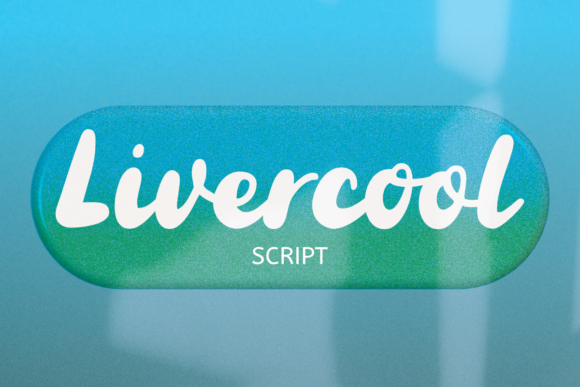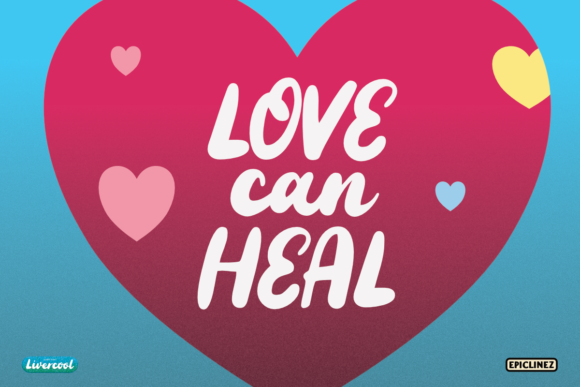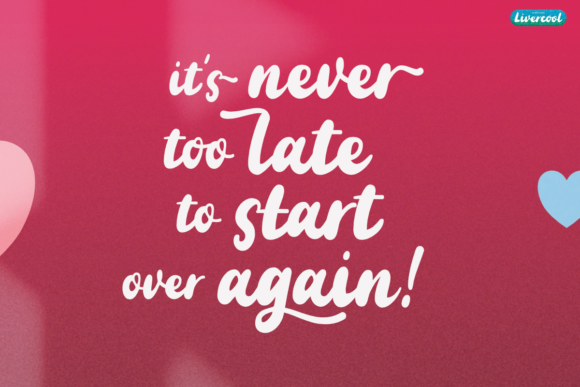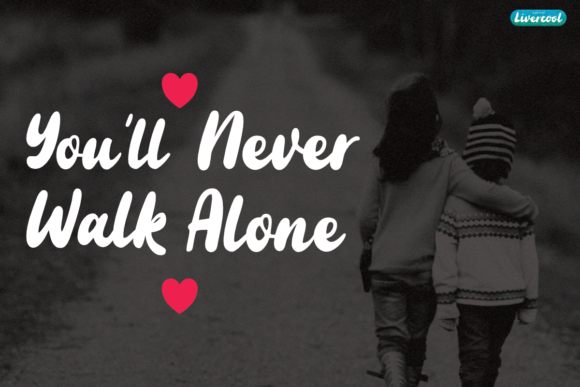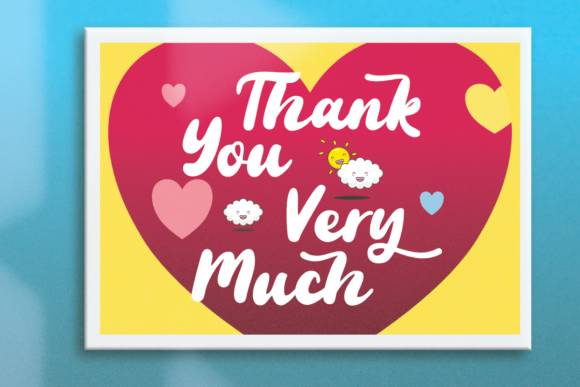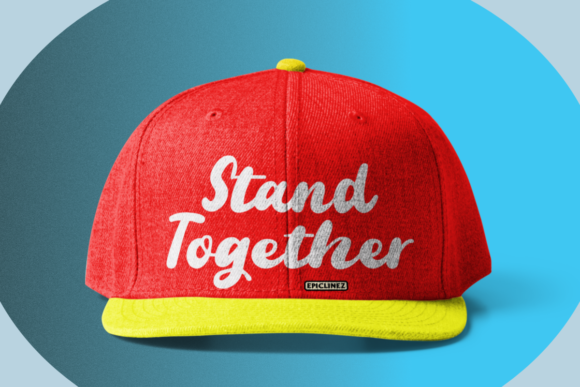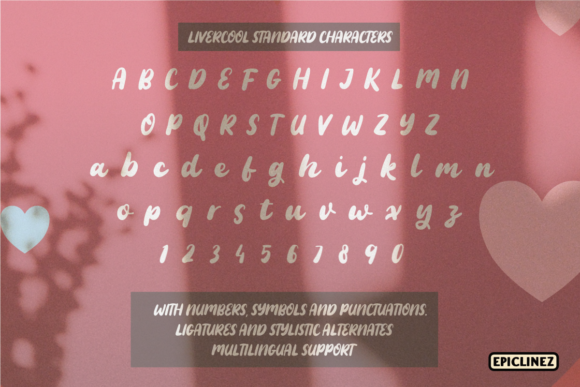
Livercool Font
About Livercool Font
Livercool is a bold and playful handwritten script font. It is suitable for logos, branding, apparel, social media, and much more.
This font is PUA encoded, multilingual, and has open type features such as alternate letters and ligatures.